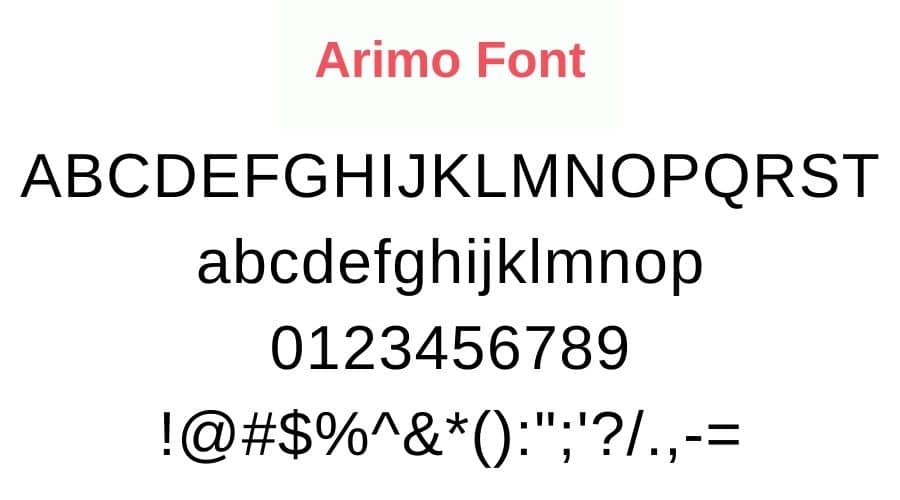
Arimo is a free sans serif font designed by Steve Matteson. It is metrically compatible with Arial, so text takes up the same space and documents keep their layout when you switch fonts.
About the Arimo font
Arimo was designed as a clean sans serif that reads clearly on screens. It covers the pan-European WGL character set, so it handles many Western European languages.
Developers and document designers use Arimo when they need a font that matches Arial’s widths on different computers. That keeps line breaks and page counts steady from one machine to another.
Name Arimo Font.
Style Sans-serif.
Designer Steve Matteson.
Arimo is a good stand-in when a document needs Arial’s spacing. Swap the font, then check line endings, table widths and the number of pages.
Is Arimo the same as Arial?
No. Arimo has the same letter widths as Arial, so text fits the same space. The letter shapes are not identical, so you can see small differences up close.